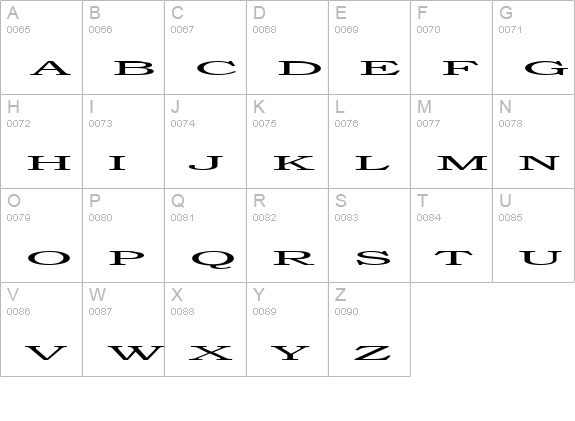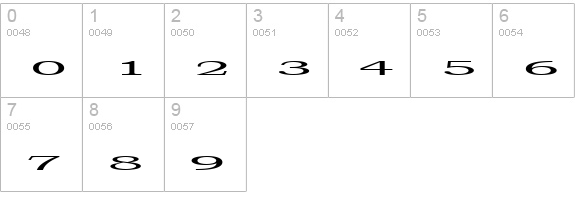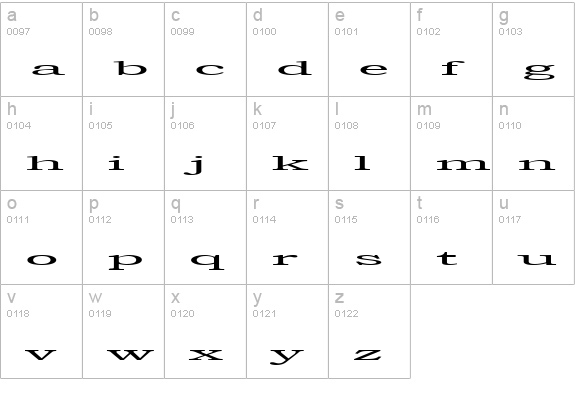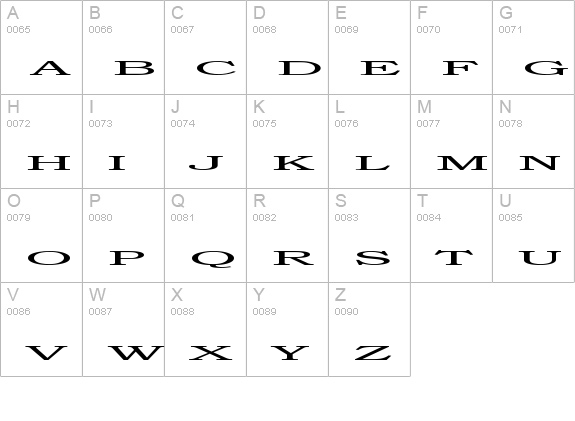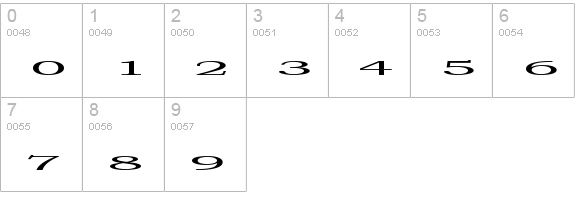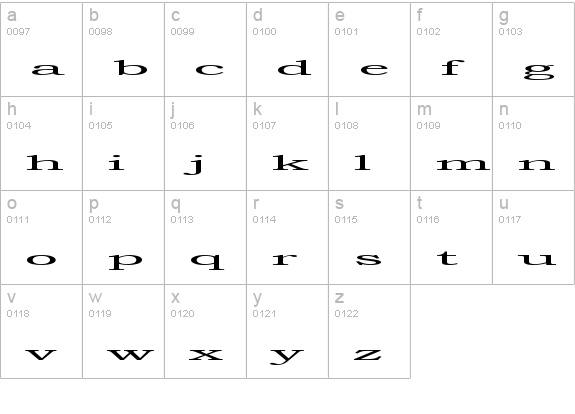
Steamroller Font Details
Introducing Steamroller, a bold and impactful font that commands attention with its robust and industrial-inspired design. This unique typeface exudes strength and power, making it the perfect choice for eye-catching headlines, logos, and branding projects. With its sharp edges and sturdy letterforms, Steamroller captures the essence of raw energy and determination. Each character is meticulously crafted to convey a sense of solidity and resilience, giving your designs an edge that is impossible to ignore. Whether you're creating posters, advertisements, or website headers, Steamroller will effortlessly make your message stand out from the crowd. Its bold presence demands attention and leaves a lasting impact on your audience. But what truly sets Steamroller apart is that it is not only visually striking, but also free. Yes, you read that right – this exceptional font is freely available to download at FontsMarket.com. Now you can enhance your designs with a powerful and professional-looking font without breaking the bank. Don't miss out on this incredible opportunity to add Steamroller to your font collection. Download it today and experience the thrill of unleashing its raw strength and captivating presence in your creative projects.